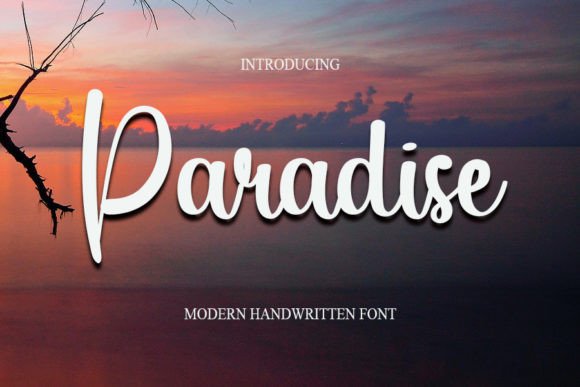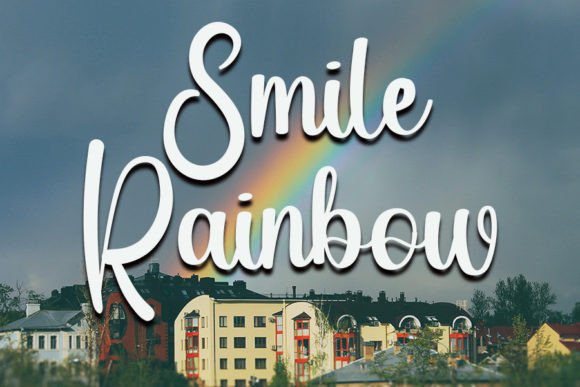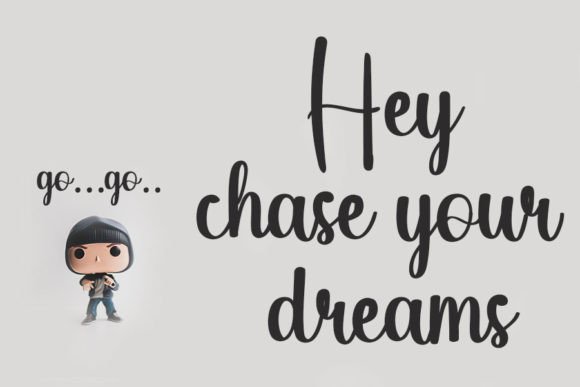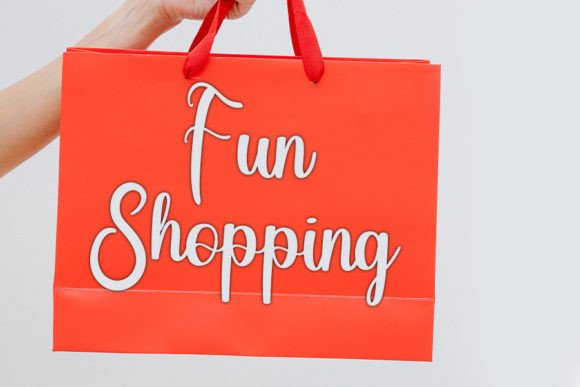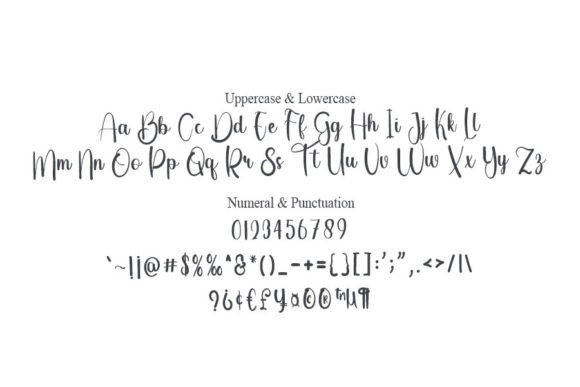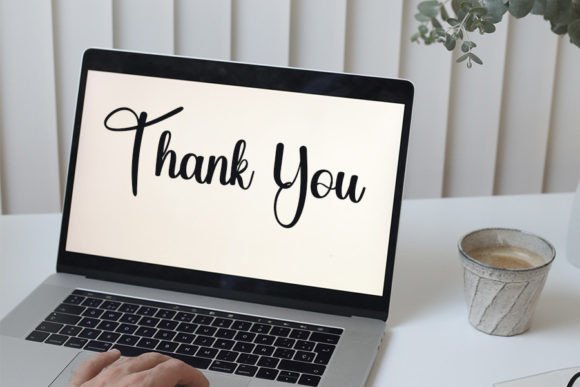
Paradise Font
About Paradise Font
Paradise is a cool handwritten font with a modern vibe and spotless form, inspired by classic calligraphy. Not too thin and not too thick, balanced and varied, this font was designed to enhance the beauty of your projects.